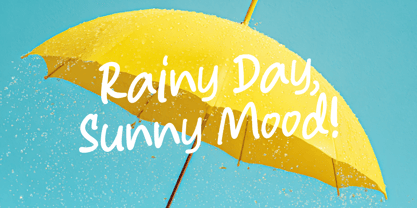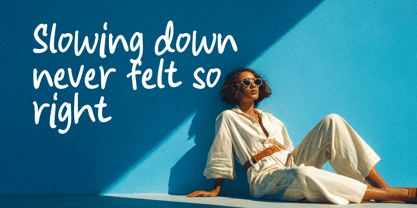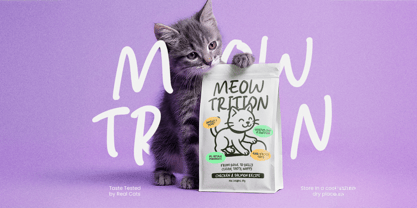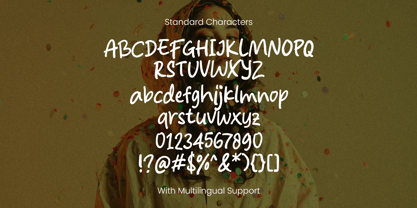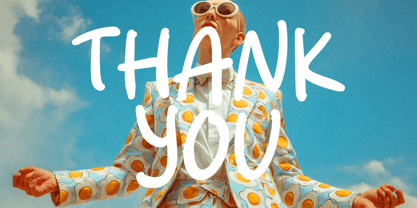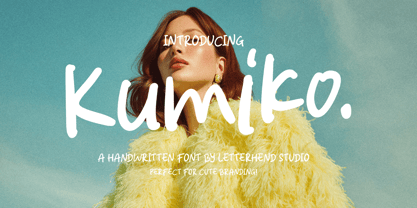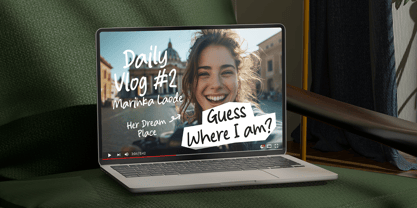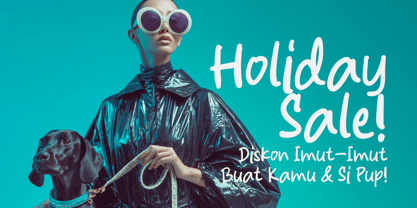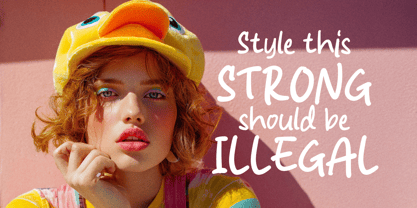
Kumiko
by Letterhend
The Kumiko Font Family was designed by Hendry Juanda and published by Letterhend. Kumiko contains 1 styles. More about this family
Kumiko is a fun handwritten font with a casual, playful vibe that feels natural and full of personality. Its smooth strokes and rounded edges give off a friendly, approachable look—perfect for cute branding, packaging, social media posts, posters, or any project that needs a cheerful and stylish touch. Kumiko brings a modern handwritten feel that’s trendy yet effortless, making your design stand out with charm and warmth.
Features :
• uppercase & lowercase
• numbers and punctuation
• multilingual support
Designers: Hendry Juanda
Foundry: Letterhend